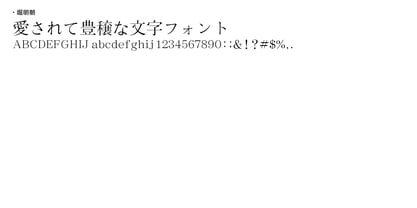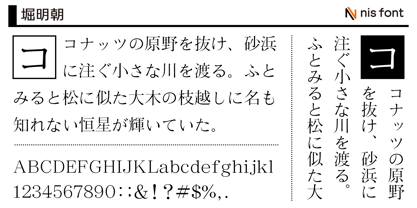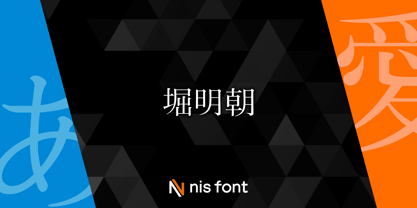
OT-NIS_HM
by NIS Fonts
This is a Mincho typeface that embodies the tradition of print typography. It possesses a refined elegance that is not found in Mincho typefaces developed for modern digital printing.